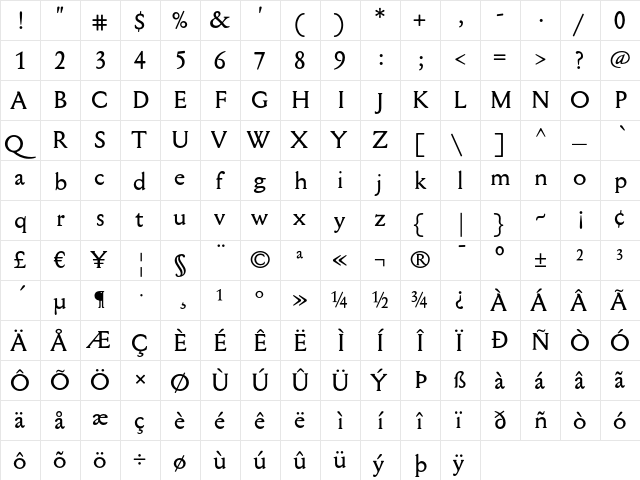
Mediaeval Regular
Design Context for Mediaeval Typeface
Mediaeval offers clean, dependable letterforms without strong stylistic allegiance, making it a practical choice for designers who need flexibility.
Pro Tip: Pair Mediaeval with a font of contrasting weight or personality to build a more expressive typographic hierarchy.